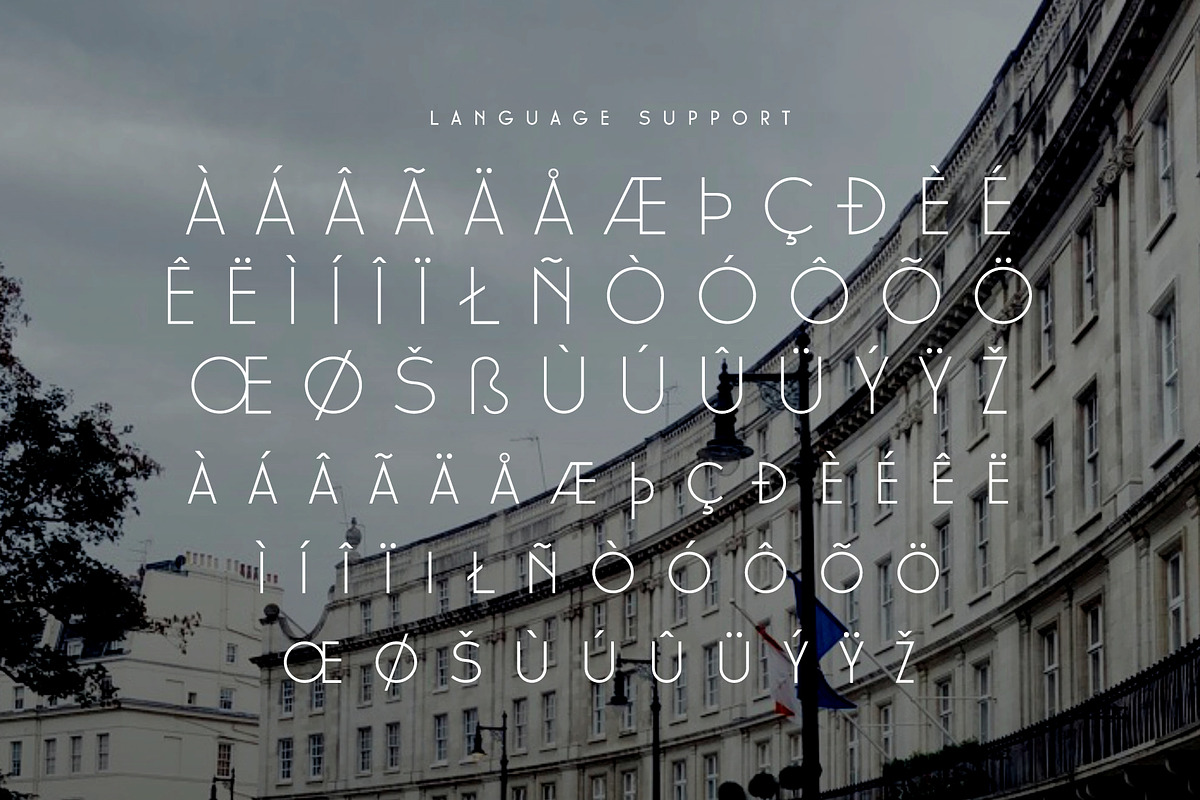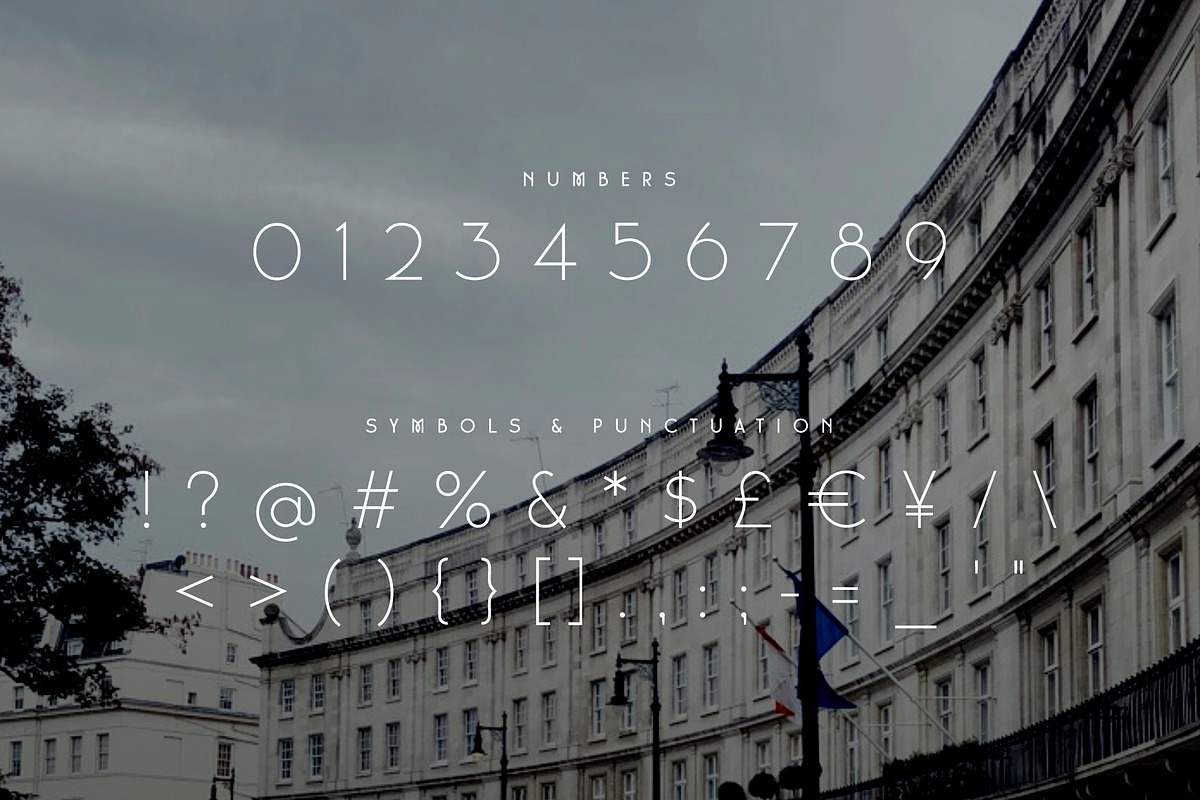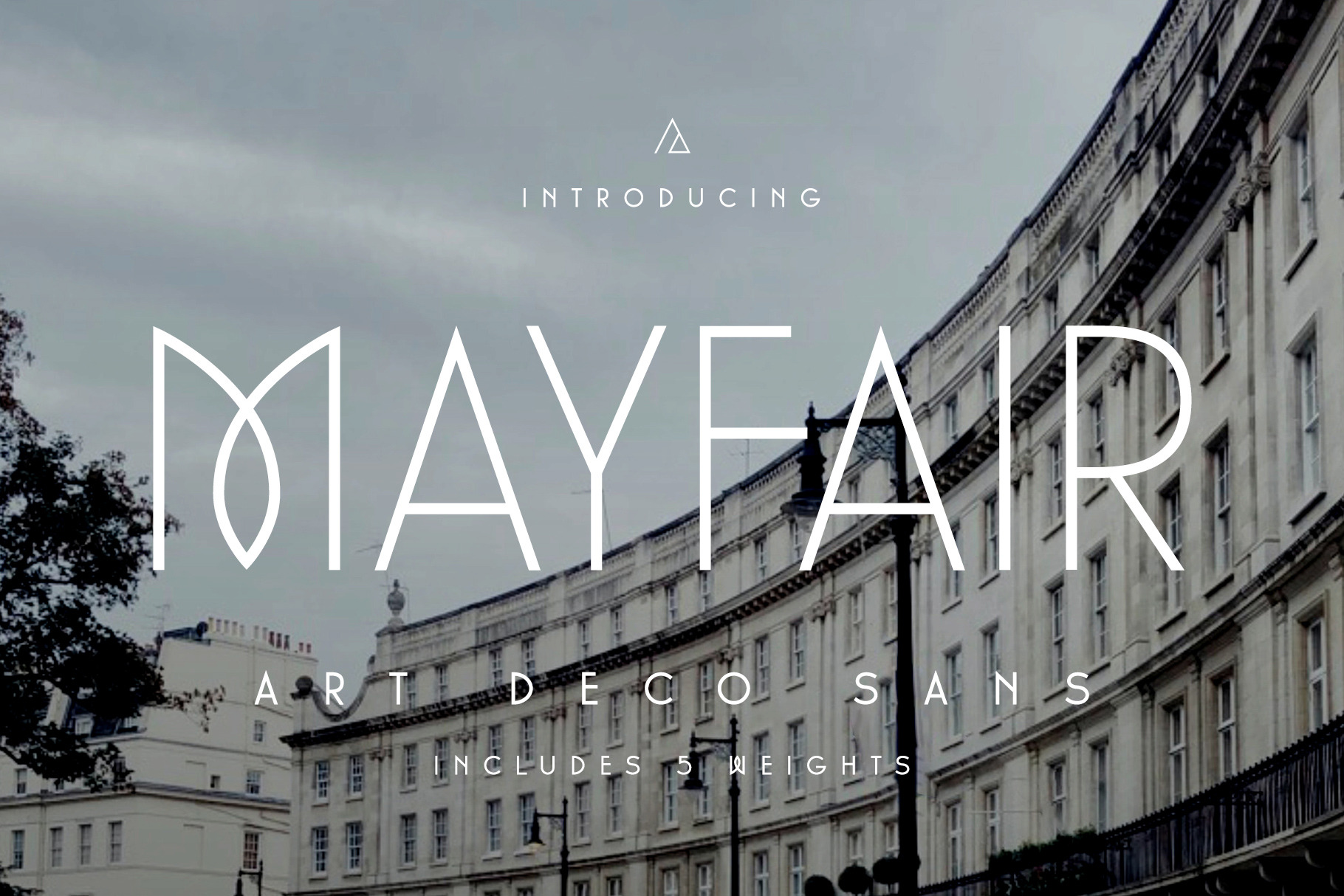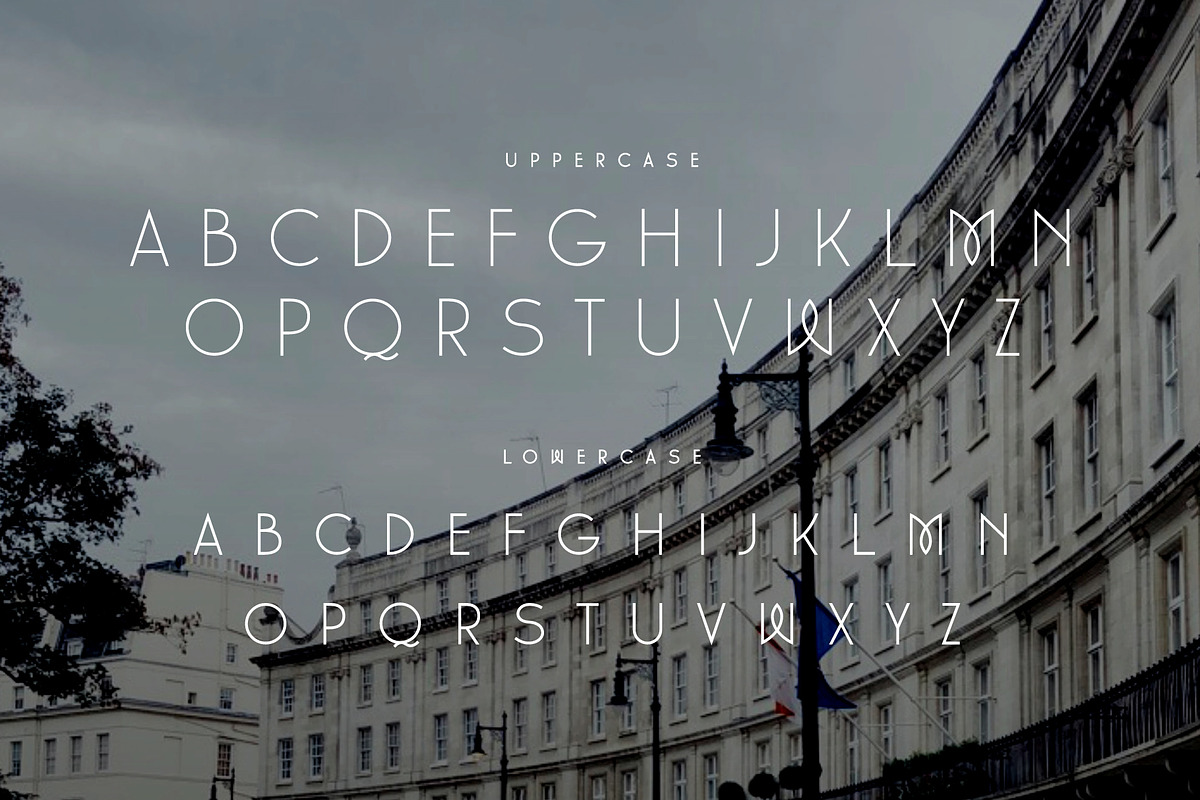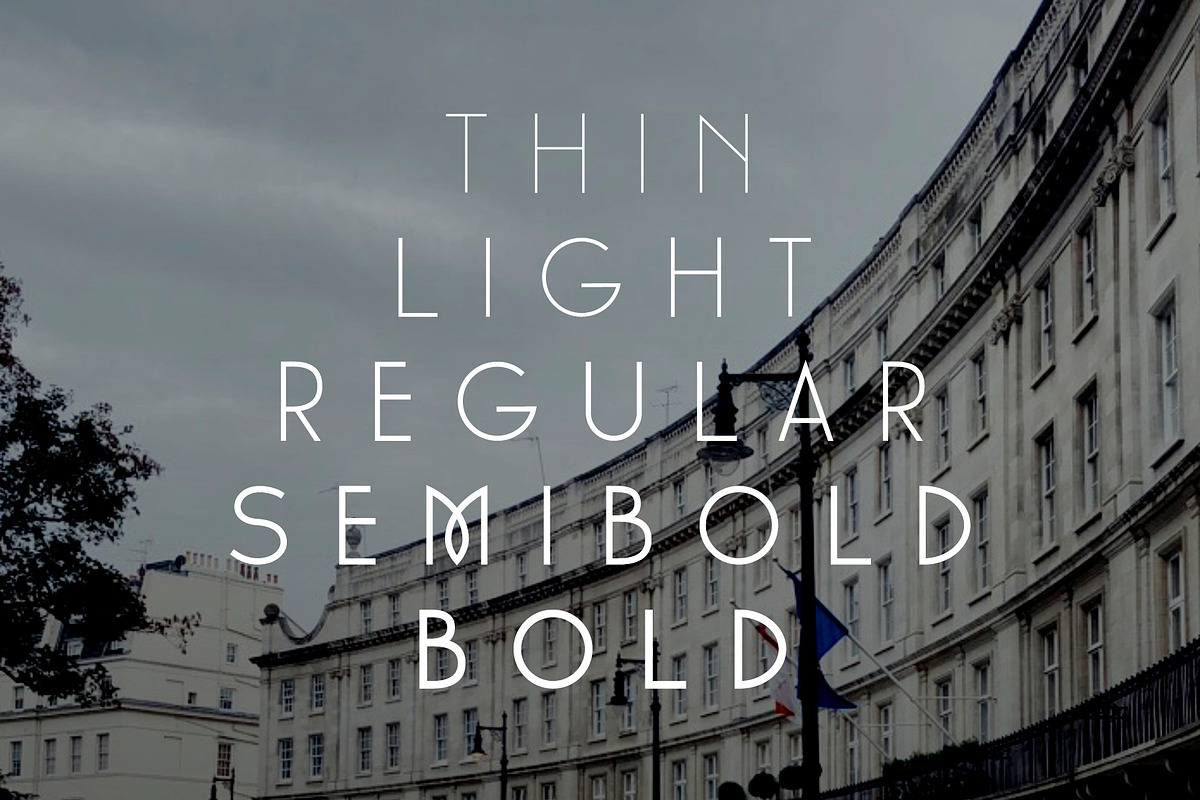
Mayfair - Art Deco Font
Inspired by classic 1920's Art Deco design, Mayfair takes it's proportions from typography of the era and combines it with modern sans-serif techniques for a stylish classical feel. A perfect fit for posters, invitations, wedding cards or film and tv. It combines light and heavy stroke widths with simple geometric forms to create a stylish appearance reminiscent of the 1920's design era.
- All uppercase glyphs
- Small caps glyphs in place of lowercase
- All numbers 0-9
- Most common symbols and punctuation
- European language support (see preview images)
- Thin, Light, Regular, SemiBold and Bold weights